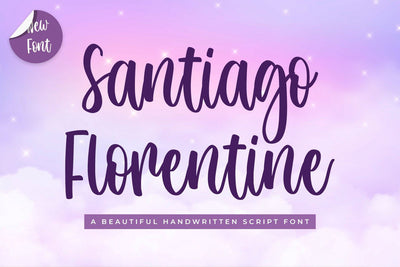
Santiago Florentine Modern Script Font
Santiago Florentine is a sweet and flowing script font. Fall in love with its cute and joyful style and use it to create gorgeous wedding invitations, beautiful stationary art, eye-catching social media posts, and much more!
This font is perfect for many different projects such as logos & branding, invitation, stationery, wedding designs, social media posts, advertisements, product packaging, product designs, label, photography, watermark, special events or anything.